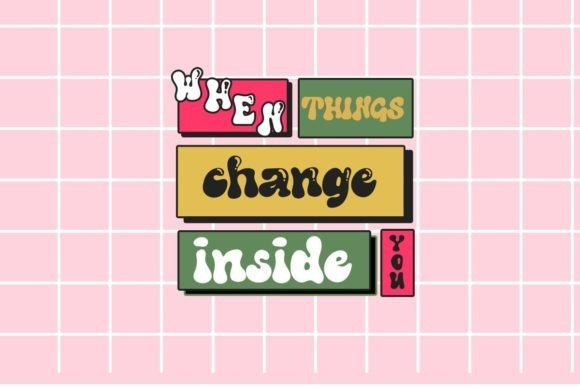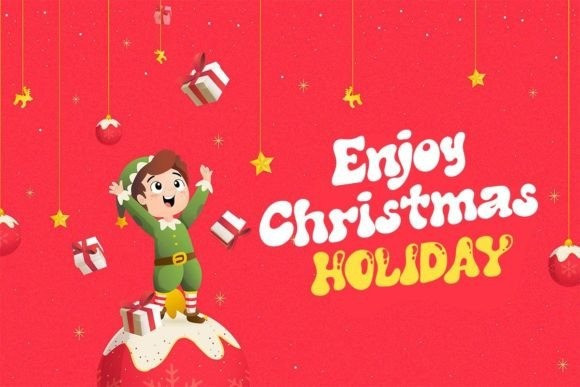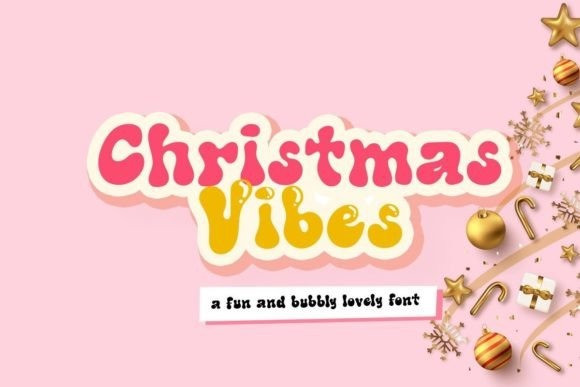
Christmas Vibes Display Font
Christmas Vibes Display Font, is a fun and joyful display font. No matter the topic, this font will be an incredible asset to your fonts’ library, as it has the potential to elevate any creation.